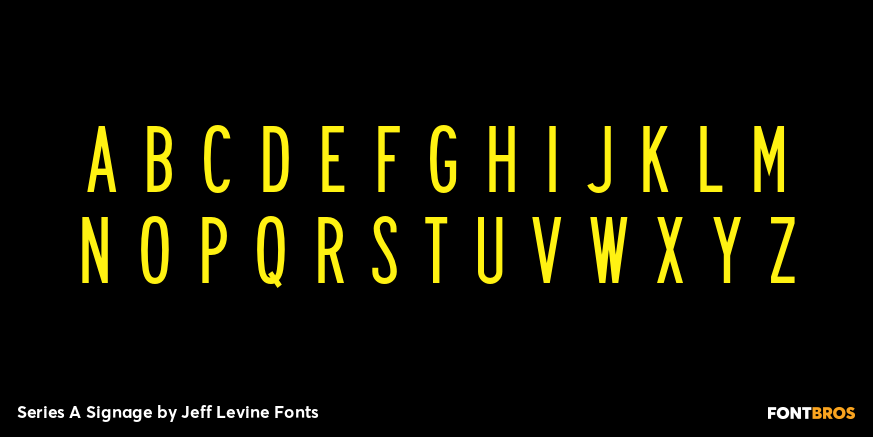
The basis for Series A Signage JNL is Highway Gothic; a type style design formally known as the FHWA Series. The font was developed by the United States Federal Highway Administration, and originally consisted of only capital letters and figures.
Each Letter designation represented a character width from "A" (condensed) to "F" (wide). Due to poor visibility at high speeds, Series "A" was discontinued.
At one point lower case characters were added to the various widths of the design, but this typeface revival is based on the original guidelines specified in the 1948 (reprinted 1952) book "Standard Alphabets for Highway Signs" [this was the original name for the FHWA series fonts preceding the eventual name change to Highway Gothic].
Unlike the original, Series A Signage JNL is available in both regular and oblique versions.